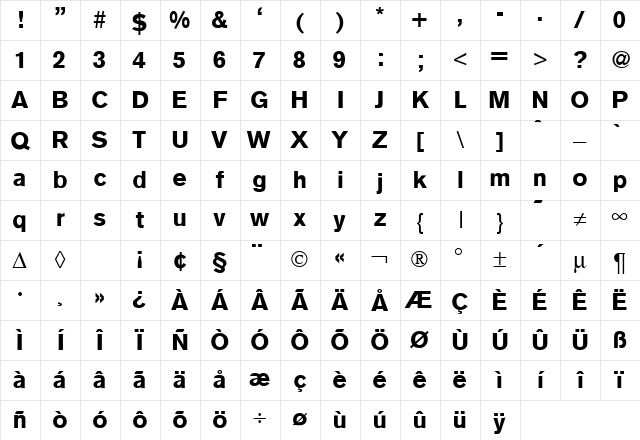
Akzent Bold
Design Context for Akzent
Akzent is a composed and adaptable typeface that performs quietly and consistently across a wide range of design contexts. Its bold stroke weight gives it real presence on the page.
Pro Tip: Use Akzent in both headline and body roles to test its range before committing to a single application.